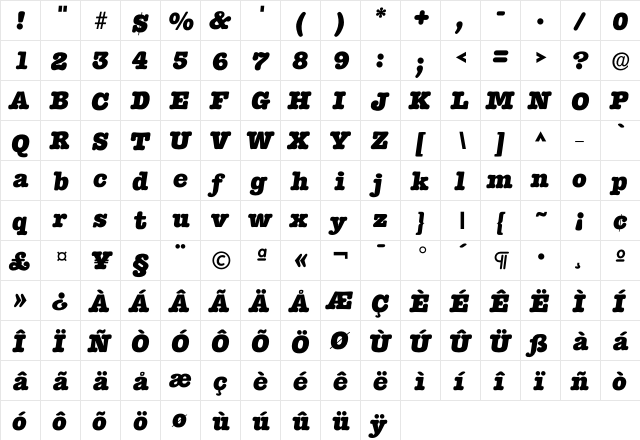
Itypewriter Heavy
Design Context for Itypewriter Typeface
Itypewriter uses fixed-width spacing throughout, giving it the structured, systematic character associated with coding environments and technical documentation.
Pro Tip: Pair Itypewriter with a proportional sans for UI contexts where code-style labels and regular body copy need to coexist.